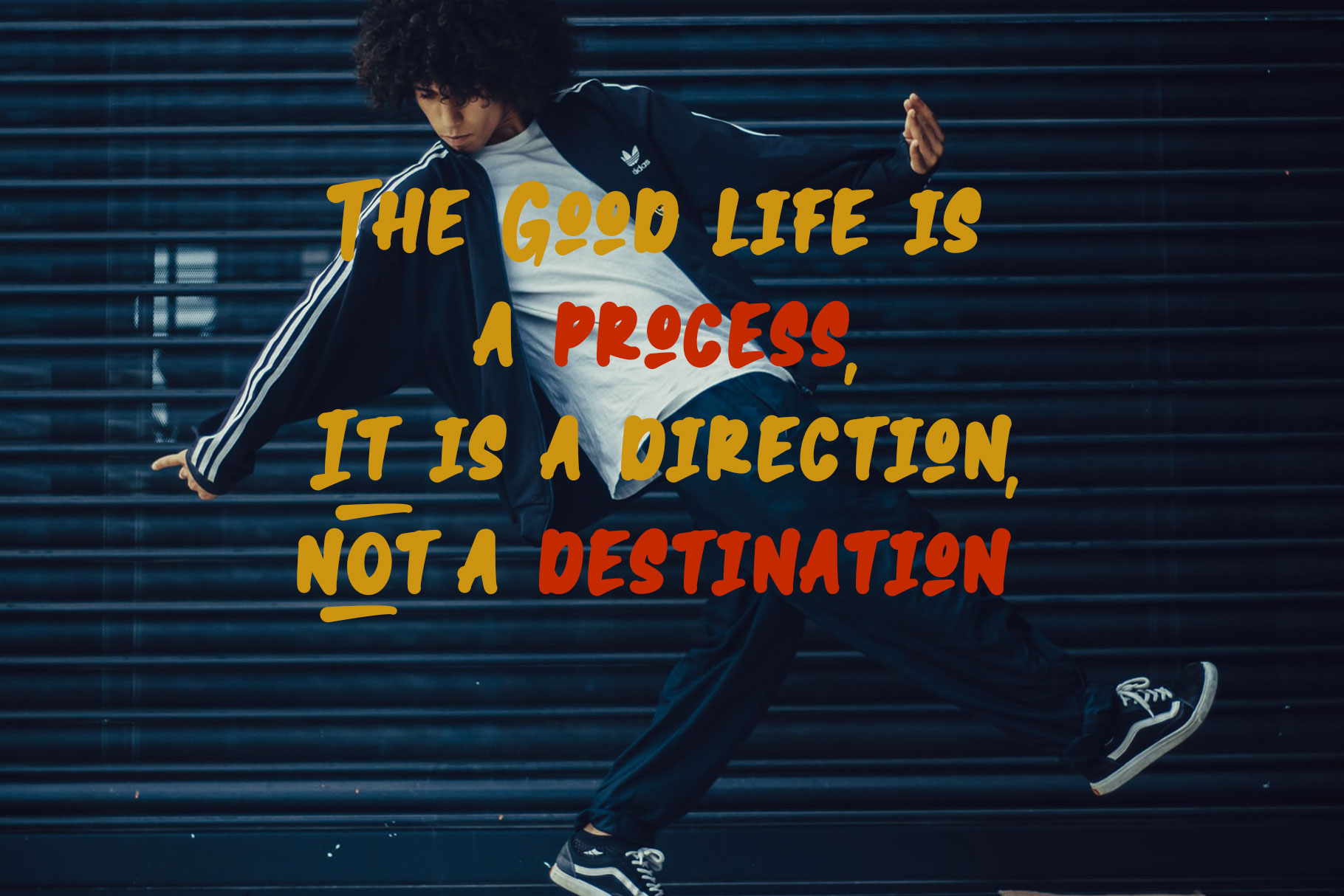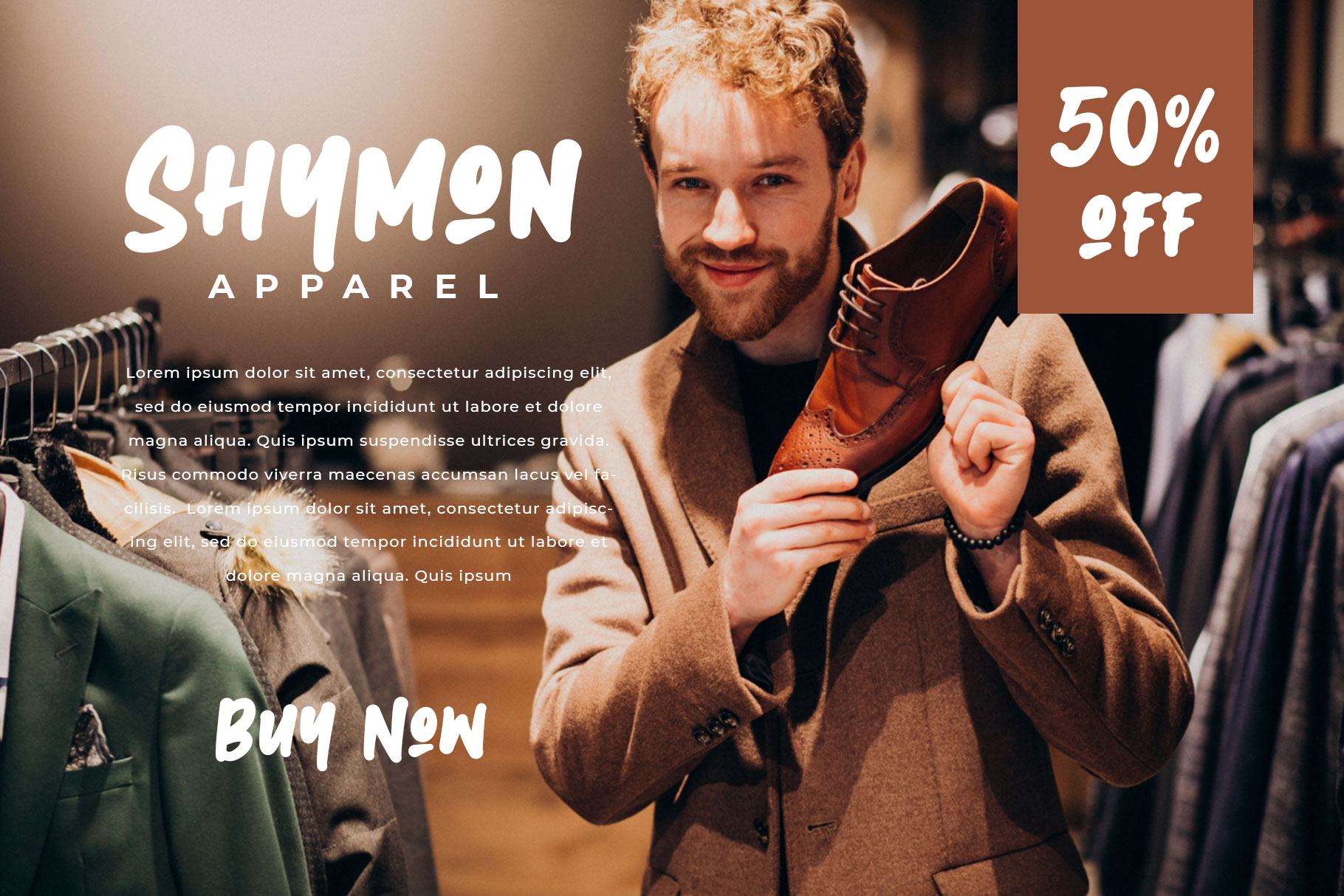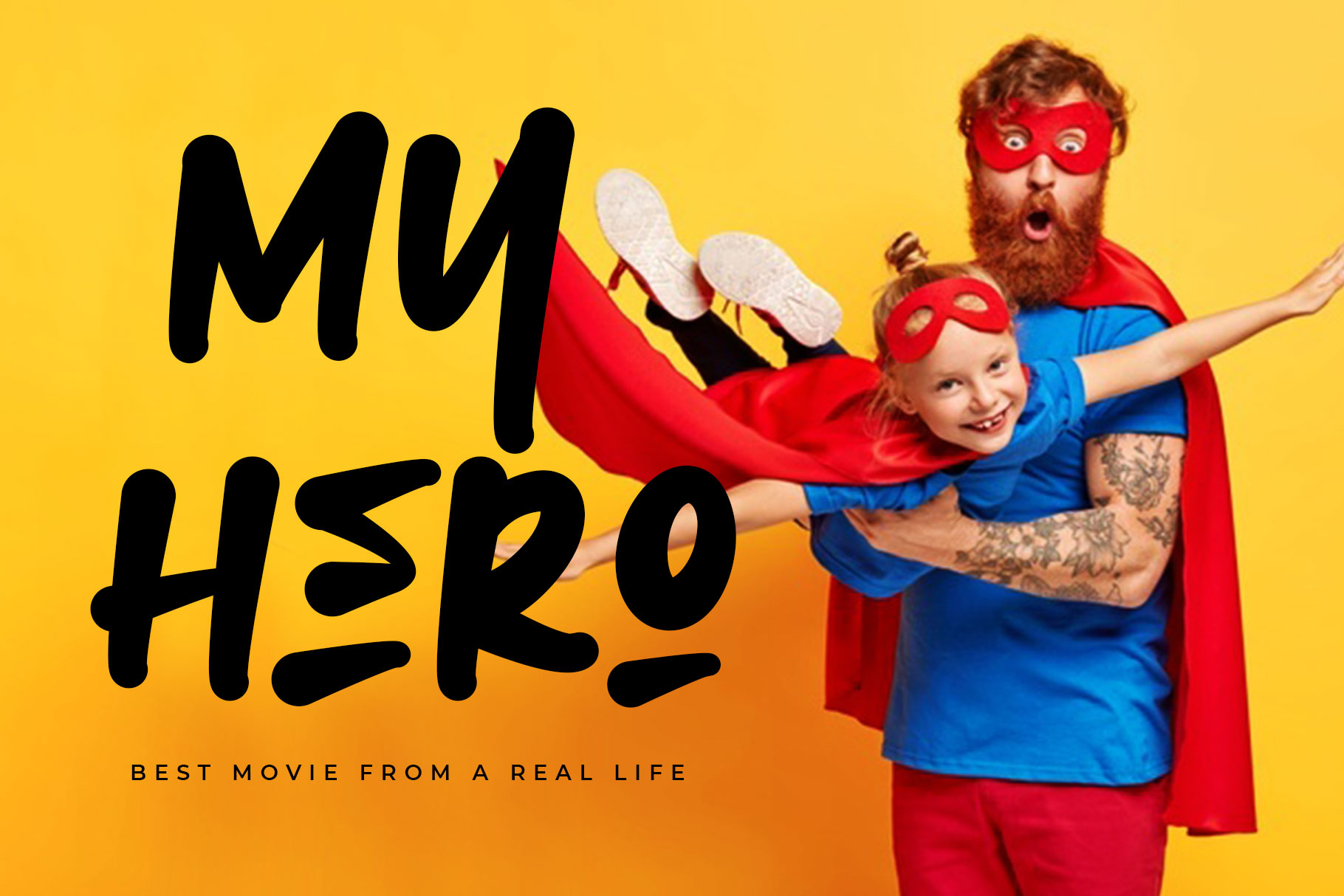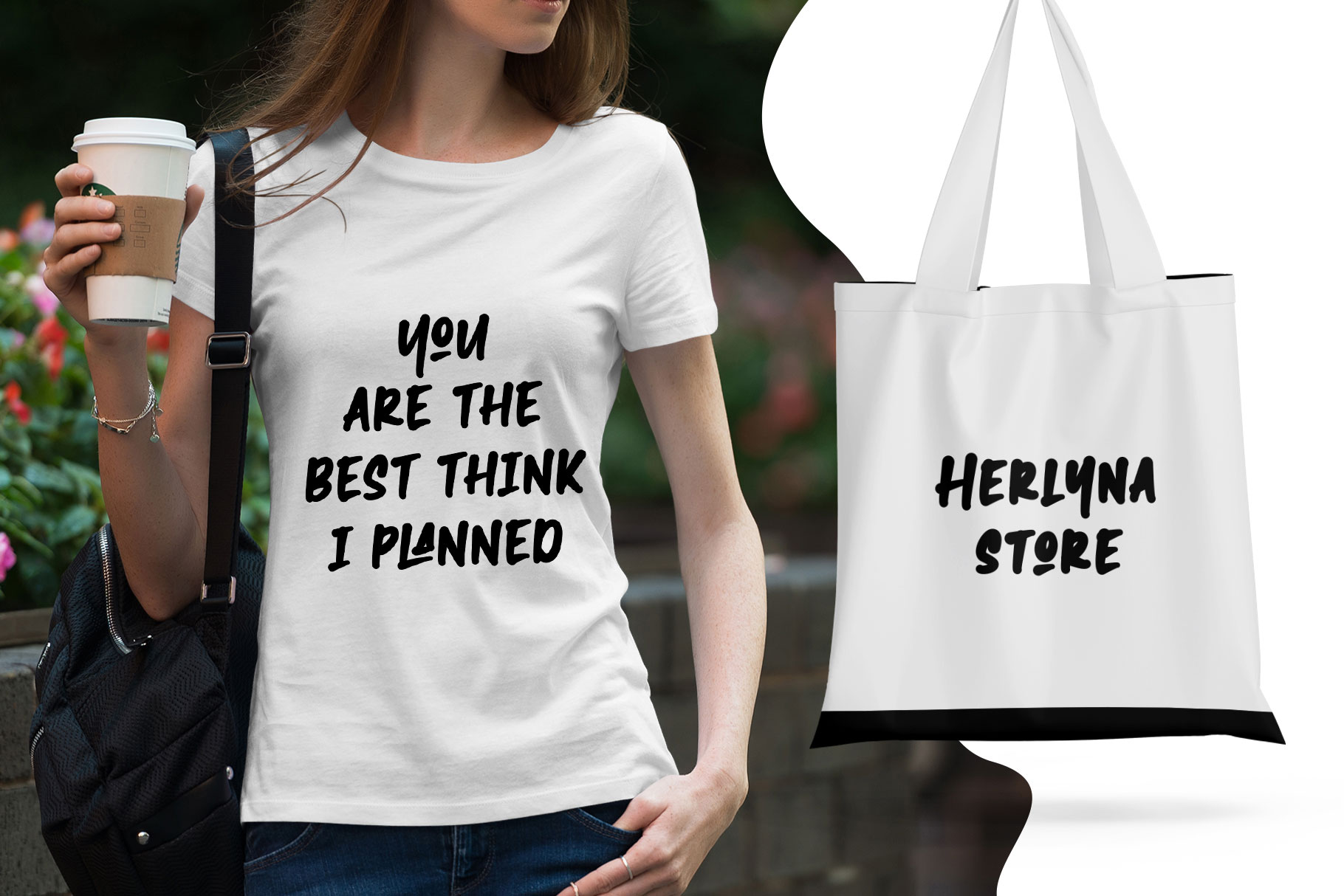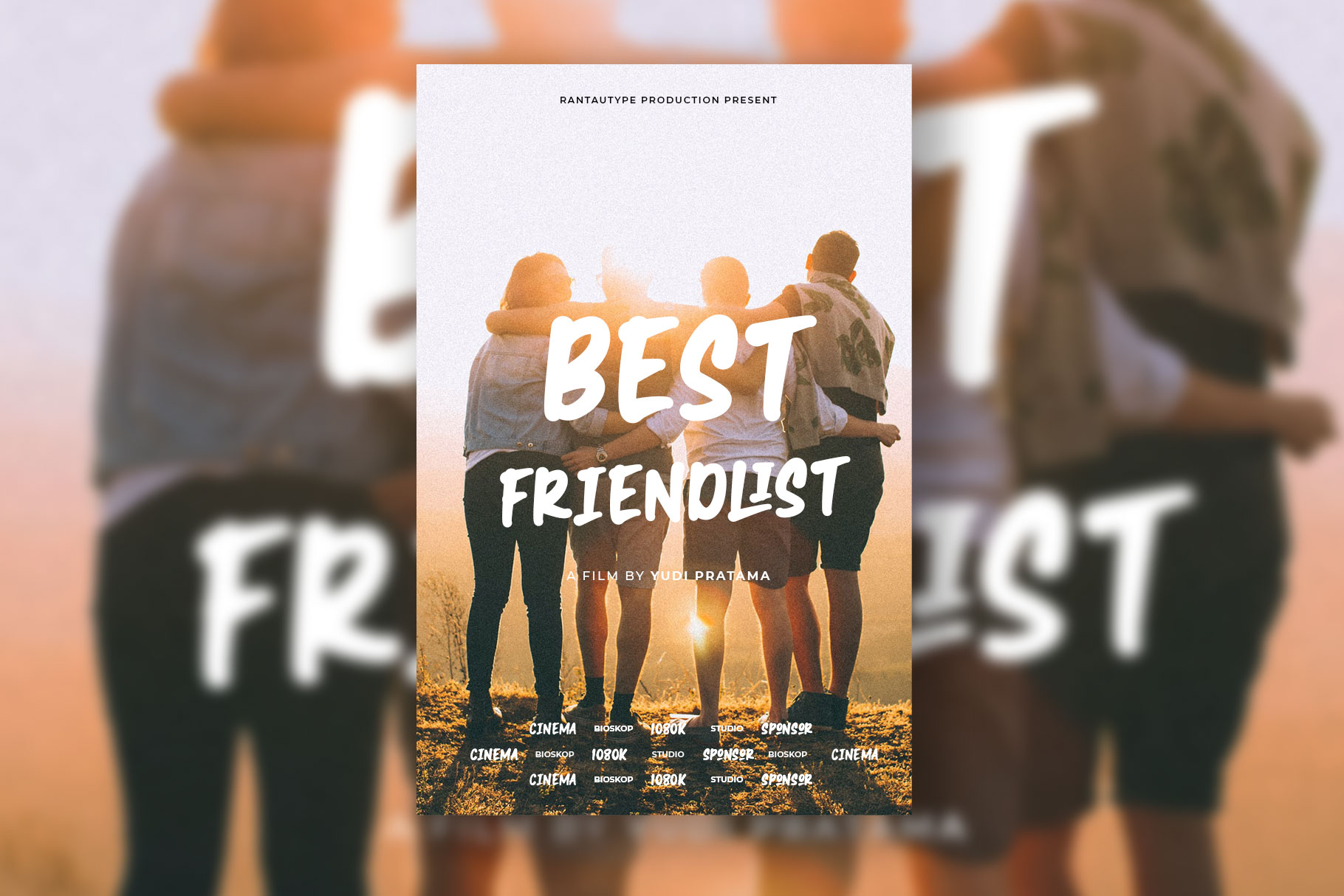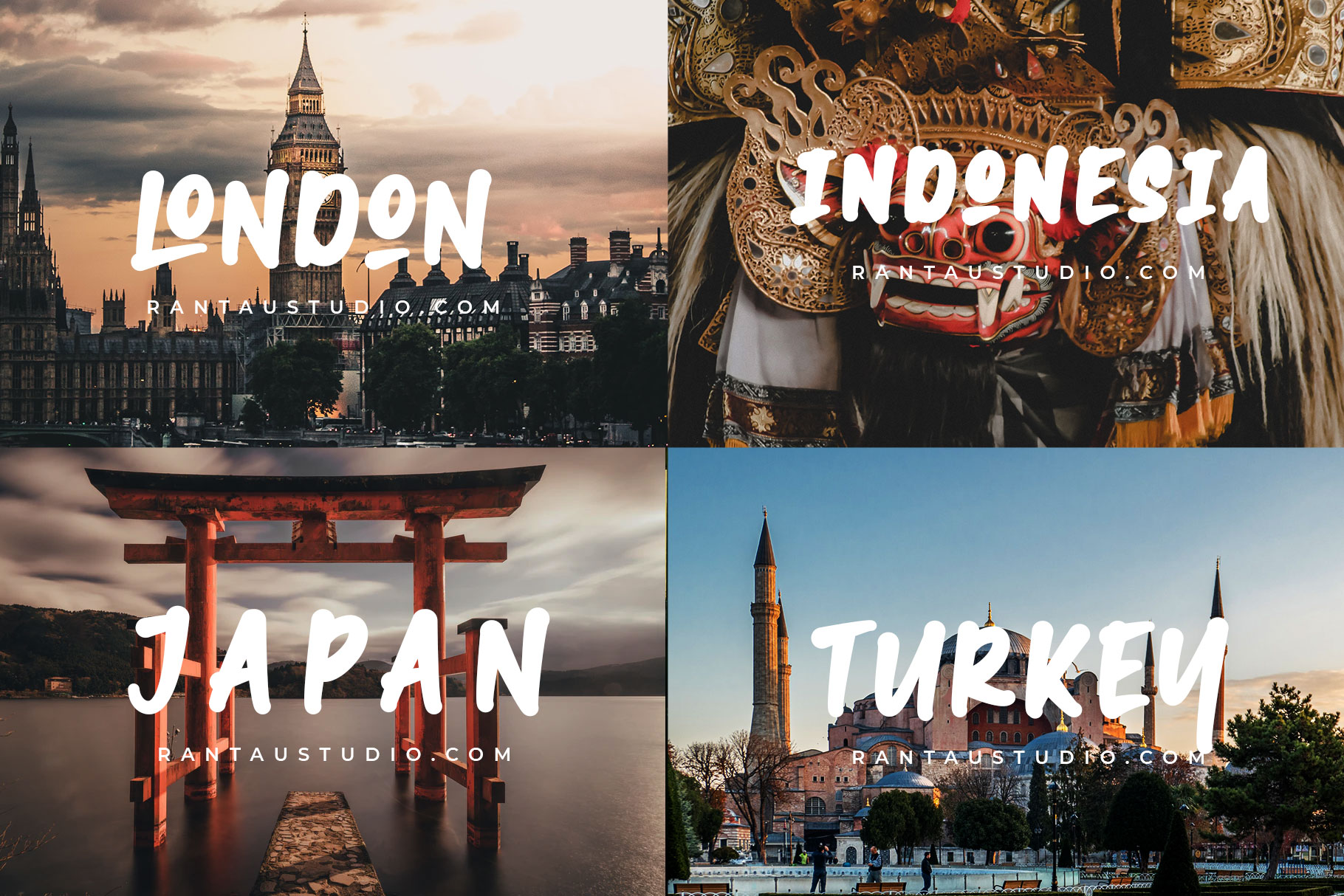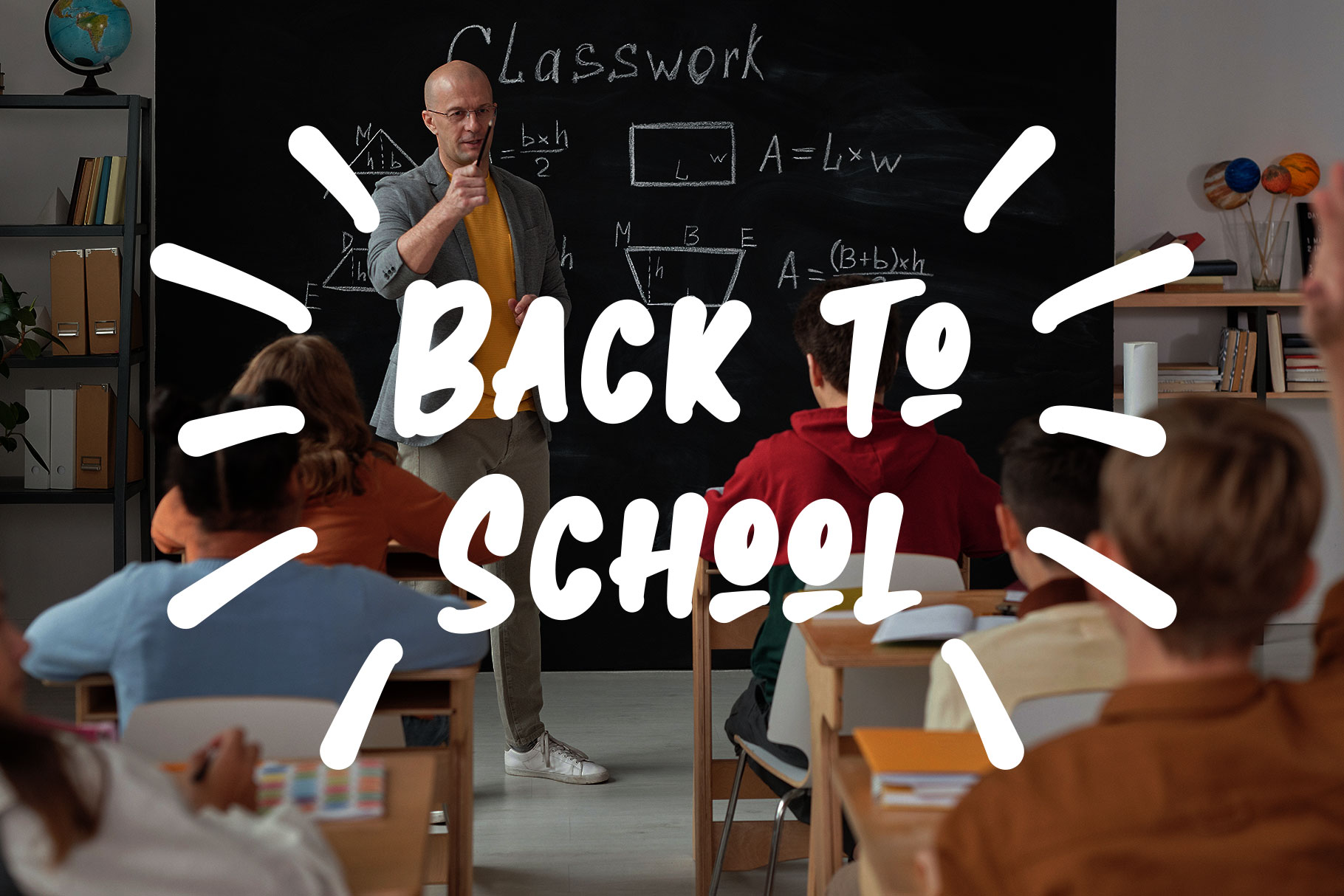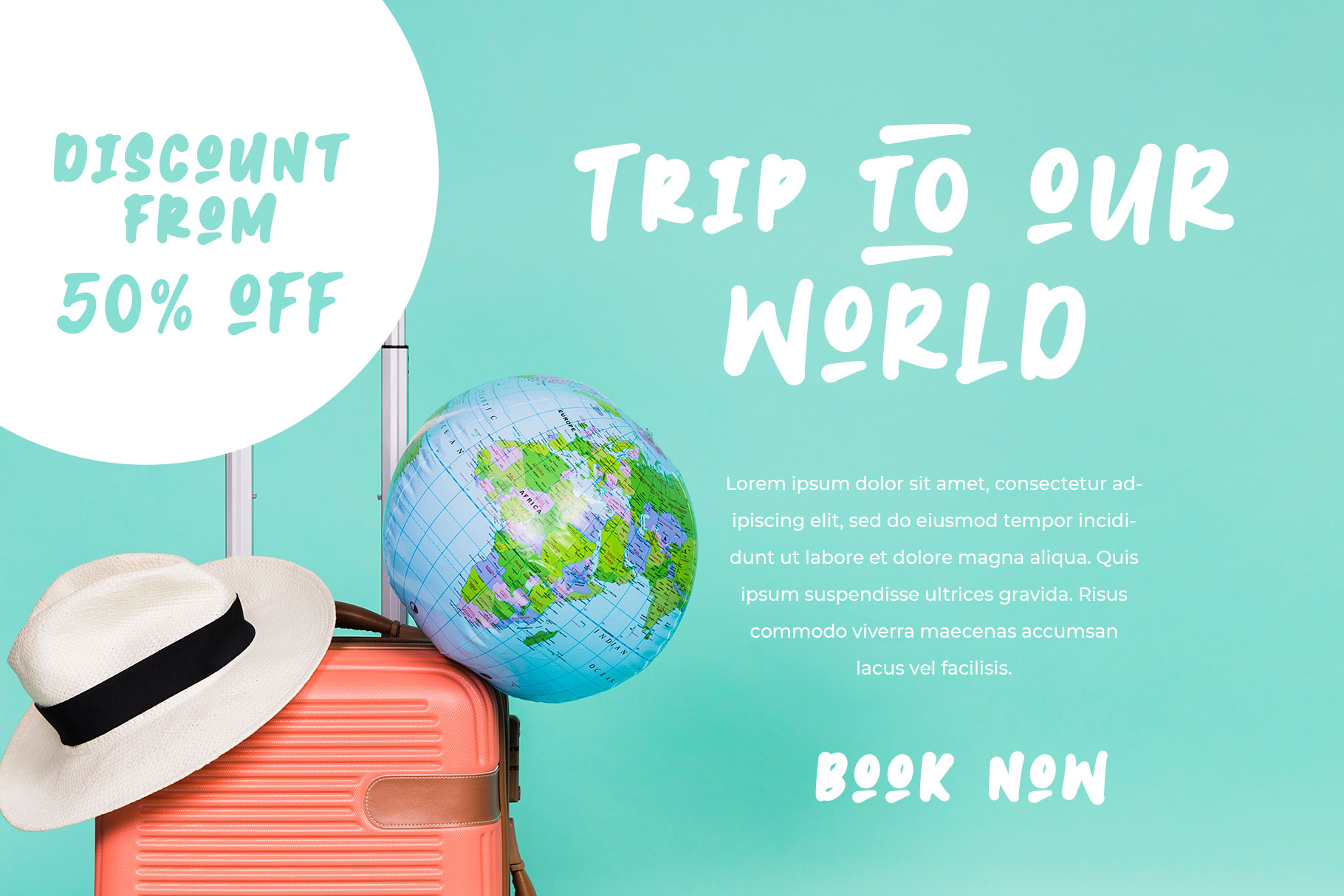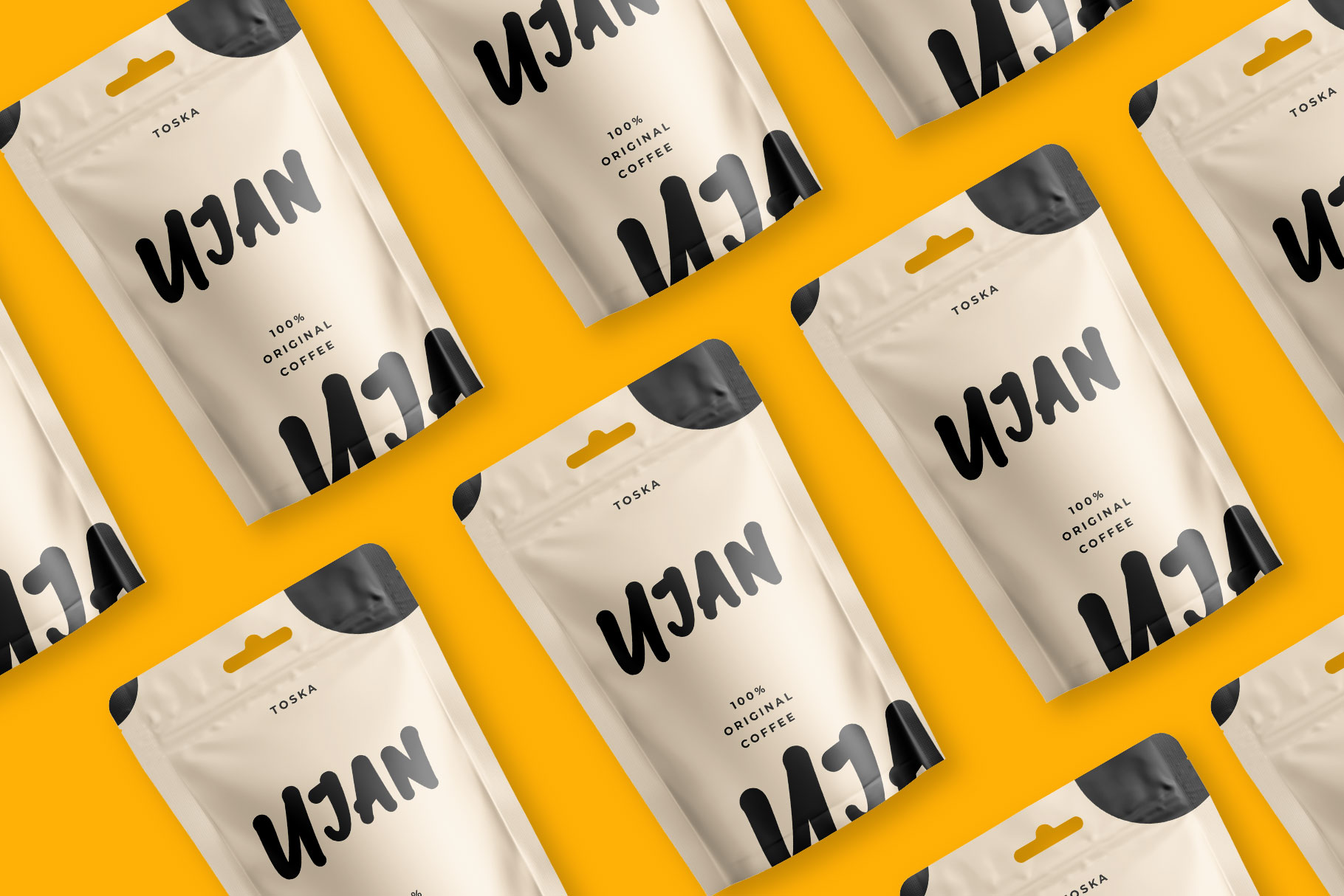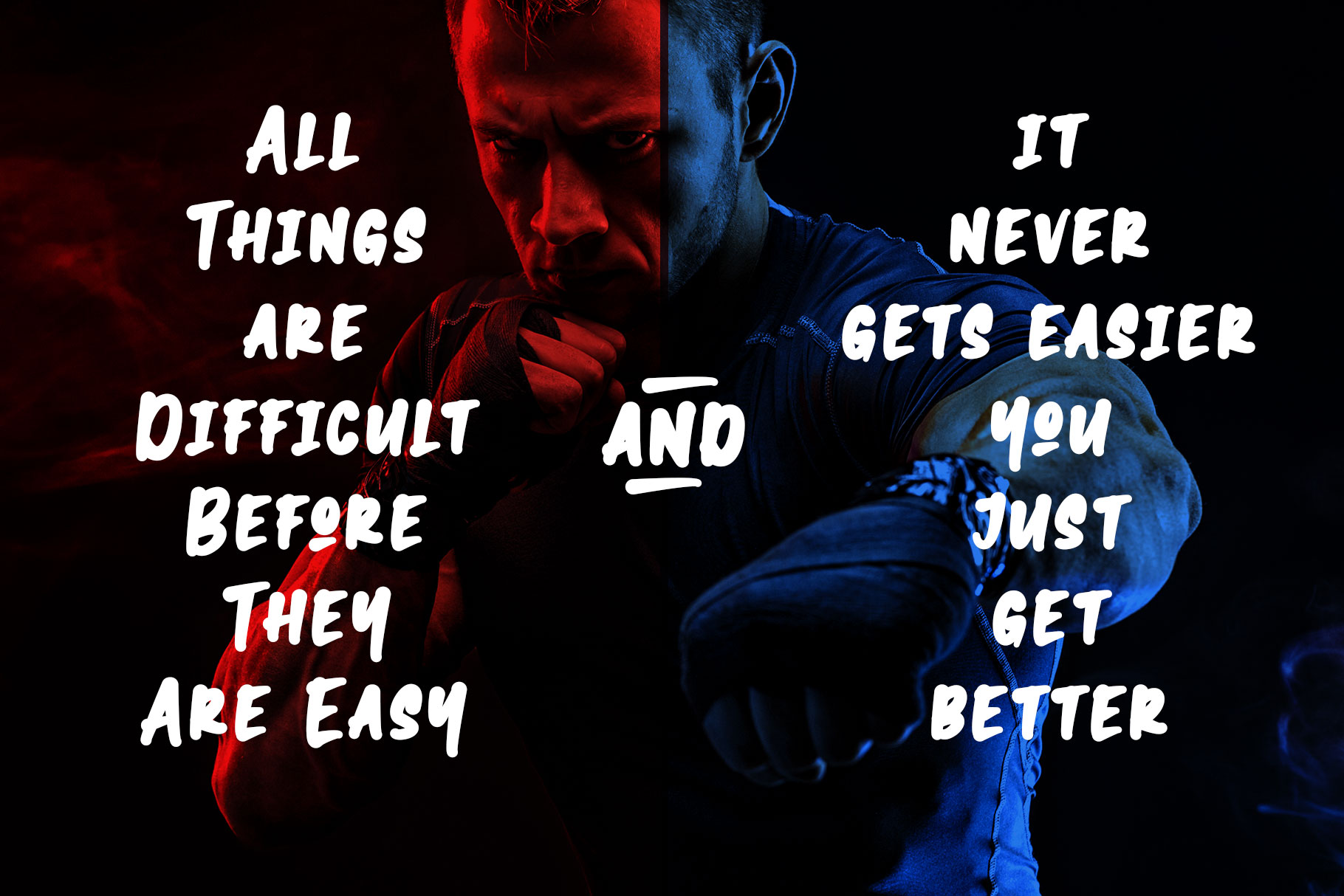
Slaro Modern stylish font
Proudly present bold modern authentic font “Slaro”. Every single curve has my personality touch. Slaro is bold and stylist font, it is great for making logotype, branding, promotional ads, quotes design, packaging, t-shirt design. merchandise, poster, merchandise, social media and much more. I also make slaro separated in reguler , ligature and decorative so you can easy to make more creative font. Slaro is here to make your work or your business to high level!!!
• Standert character  A-Z and a-z
• Multilinggual support